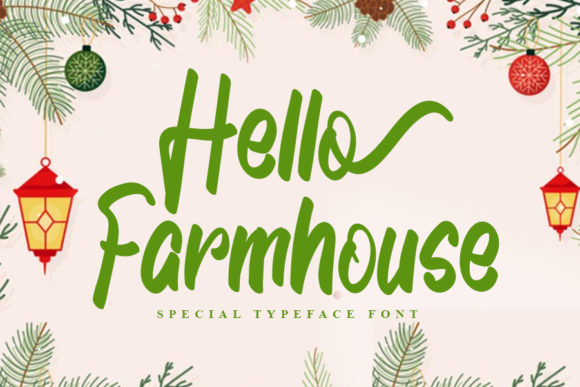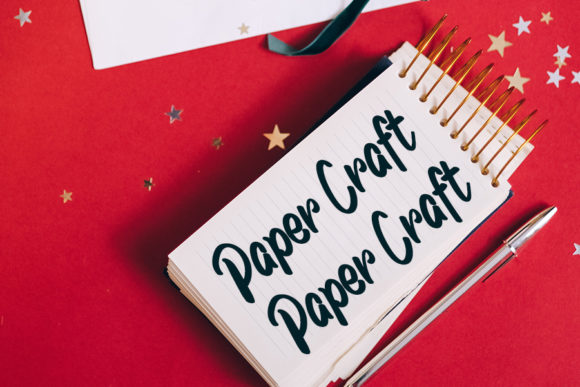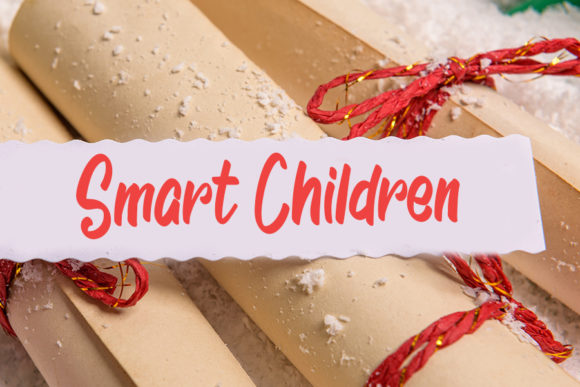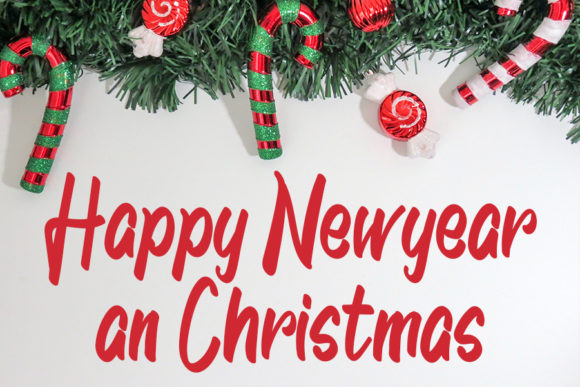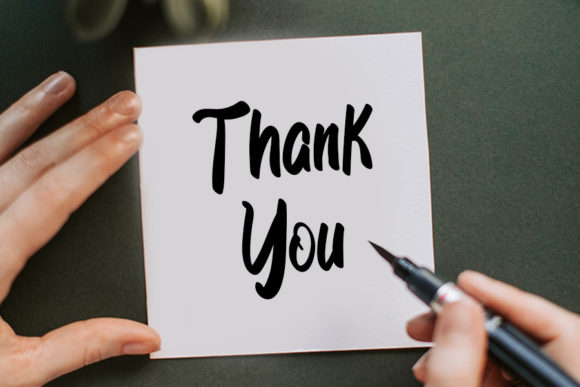
Hello Farmhouse Font
About Hello Farmhouse Font
Hello Farmhouse is a cursive and clean handwritten font. It looks beautiful on a variety of designs requiring a friendly style, such as cards, weddings, logos and so on.